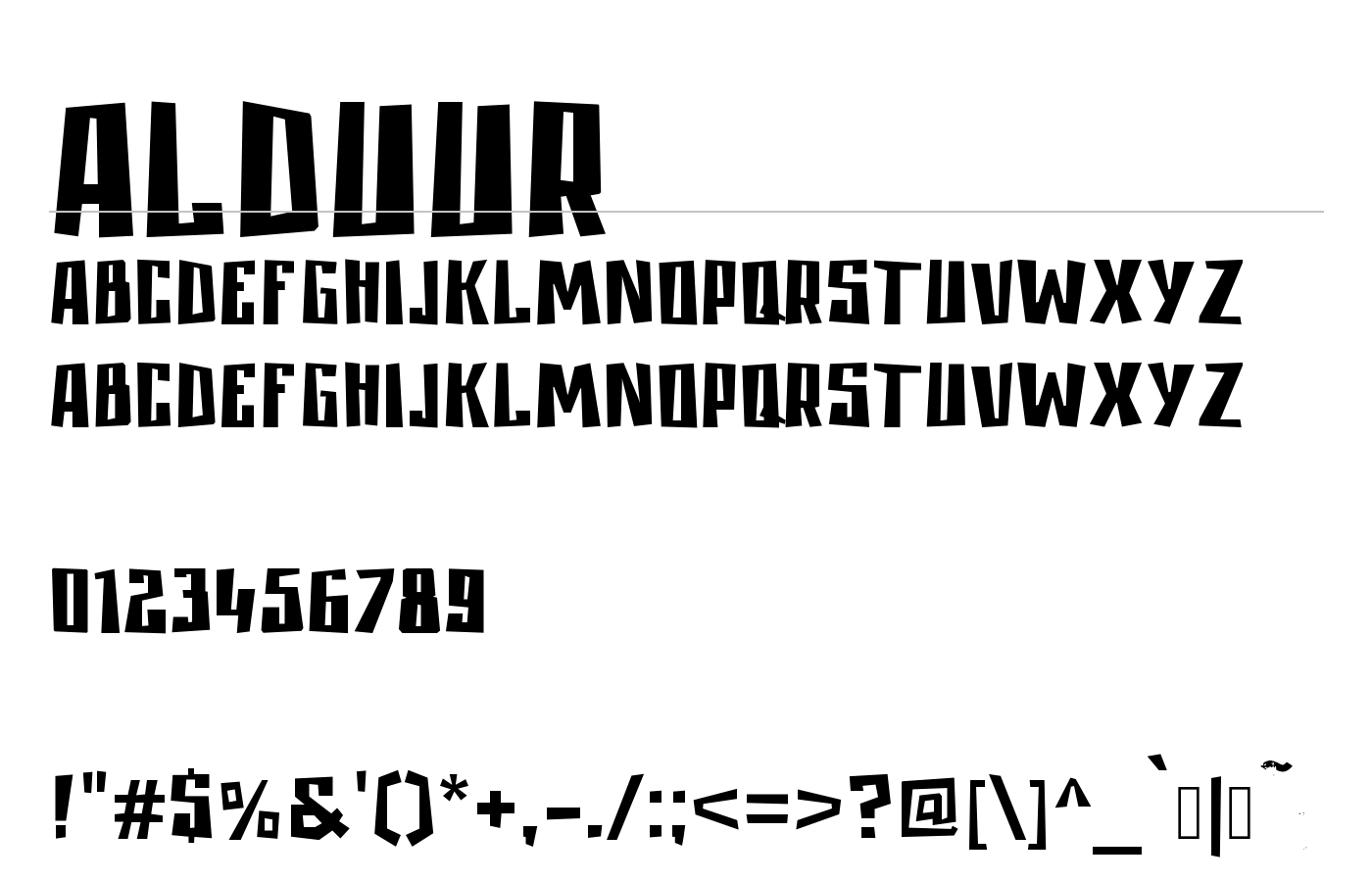
Alduur is a bold, condensed sans serif font with a quirky, irregular character shape that gives it a playful and dynamic feel. Its slightly uneven strokes and unique letterforms make it perfect for eye-catching headlines, branding, and creative projects that want to express energy and uniqueness. This font works well in contexts where a strong, distinctive personality is needed to stand out and grab attention.
Alduur Font
About Alduur Font
| Font family | Alduur Font |
| Designer | Kilian Mellbach |